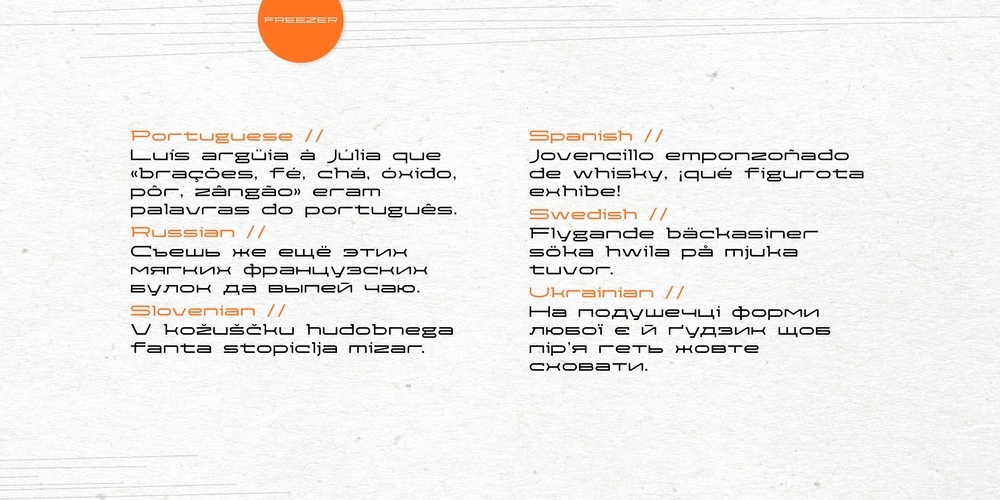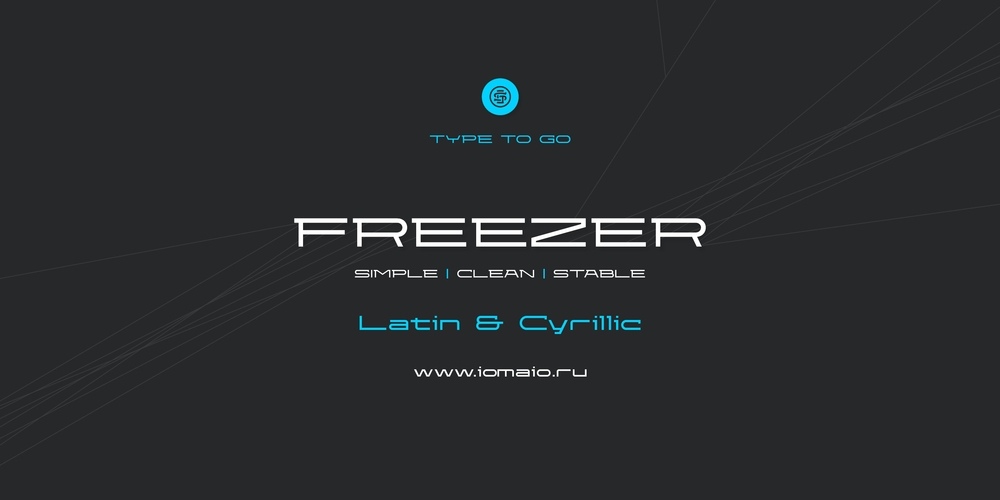
Freezer Font
Freezer Font is perfect for frozen food packaging, ice cream brand marketing, refrigeration equipment branding, winter sports communications, arctic expedition materials, cold storage facility signage, ice hockey team logos, frozen beverage marketing, winter festival promotions, and ice-cold product advertising.
Freezer Font is exciting because it captures the crisp clarity and refreshing appeal of freezing temperatures with its crystalline letterforms that embody the pristine purity and invigorating energy of ice-cold environments. Its distinctive character design combines arctic precision with contemporary coolness, making it perfect for brands that want to communicate freshness, preservation quality, and the kind of ice-cold excellence that keeps products at their peak performance and appeal.
The Freezer Font family includes Light, Regular, Medium, Bold, Extra Bold weights, crystalline Italic variations, Condensed styles, Frozen alternates, Ice flourishes, Arctic ornaments, and Chill elements, providing designers with comprehensive tools for creating refreshingly cool typography that captures the essence of frozen freshness and ice-cold brand positioning.
Freezer Font Free Download delivers ice-cold typography for brands celebrating frozen freshness and arctic precision, featuring meticulously crafted letterforms that embody the reliability and quality of professional refrigeration and frozen product excellence. This refreshing typeface combines arctic authenticity with commercial functionality, creating the perfect solution for frozen food companies, refrigeration manufacturers, and cold-chain businesses that require typography as reliable as their temperature control systems.
Whether you're developing frozen food brand identities, designing refrigeration equipment marketing, creating winter sports materials, or producing ice-cold beverage communications, Freezer Font provides the crisp foundation needed for authentic cold-temperature positioning. Its arctic character makes it particularly effective for frozen food producers, ice cream manufacturers, refrigeration companies, and winter sports brands targeting consumers who appreciate freshness, quality preservation, and ice-cold excellence.
Perfect for frozen food marketers, refrigeration brand designers, winter sports communicators, and creative professionals working with cold-temperature industries, this font offers the refreshing qualities essential for successful frozen market positioning. The typeface's crystalline nature ensures consistent coolness across both digital frozen food platforms and traditional cold-storage packaging applications.
Freezer Font includes comprehensive cold-focused character sets, ice-inspired design elements, and arctic-optimized spacing that guarantees superior performance in frozen industry applications. Its ice-cold approach to typography makes it indispensable for brands requiring frozen freshness and arctic reliability. Chill your brand identity with Freezer Font Free Download and create typography that's absolutely ice-cold perfect.